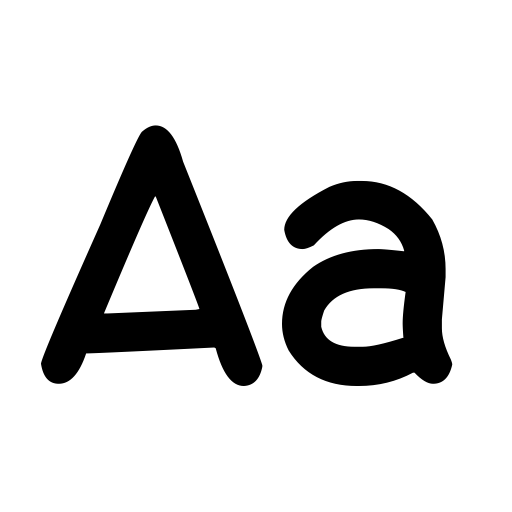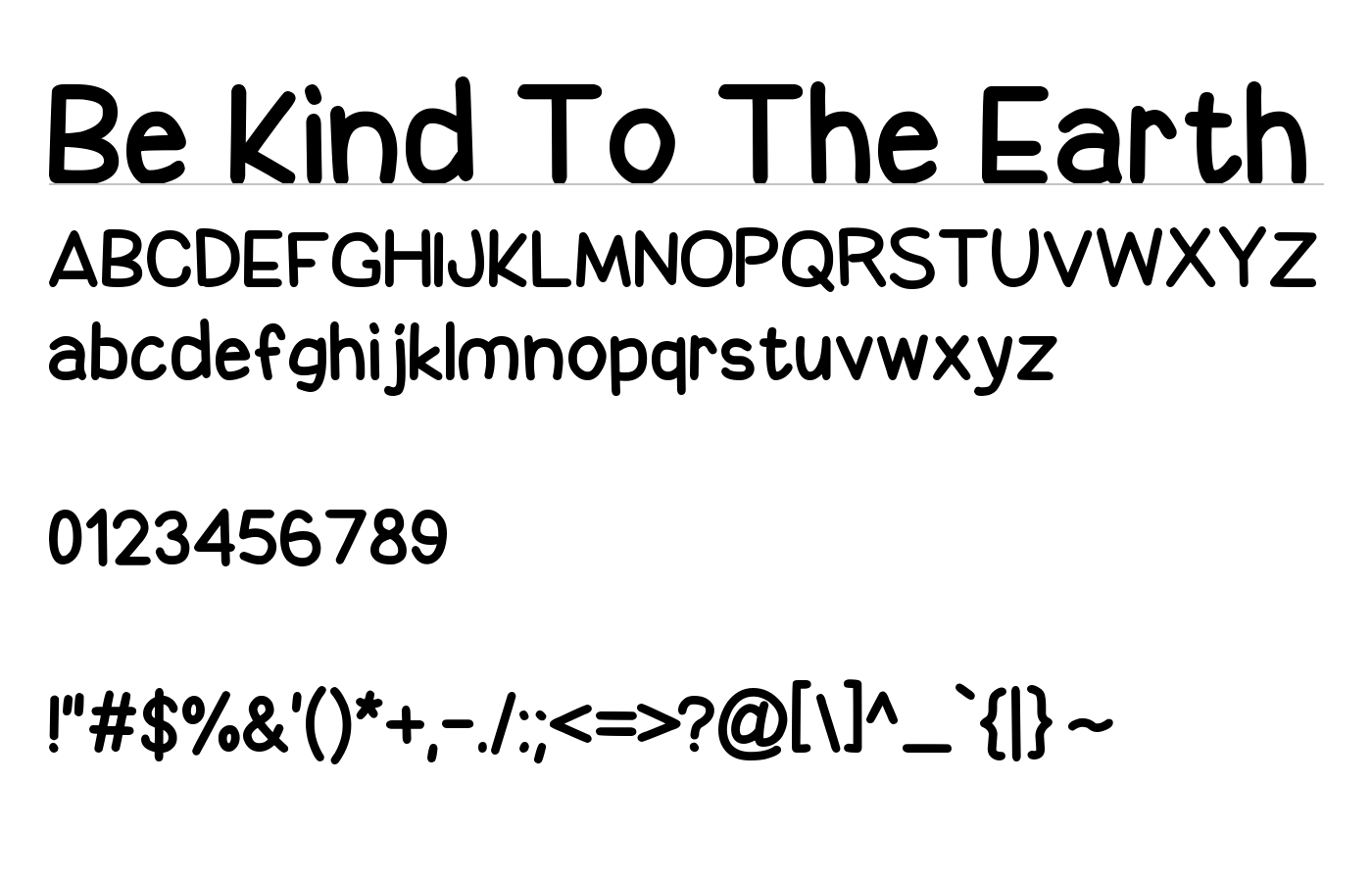
Be Kind To The Earth is a playful and friendly sans serif font with a casual handwritten feel. Its rounded, slightly irregular letterforms and medium weight create an approachable, warm vibe ideal for projects that want to convey kindness and eco-consciousness. This font works well for children’s materials, informal branding, and environmentally themed designs where warmth and simplicity are key.
Be Kind To The Earth Font
About Be Kind To The Earth Font